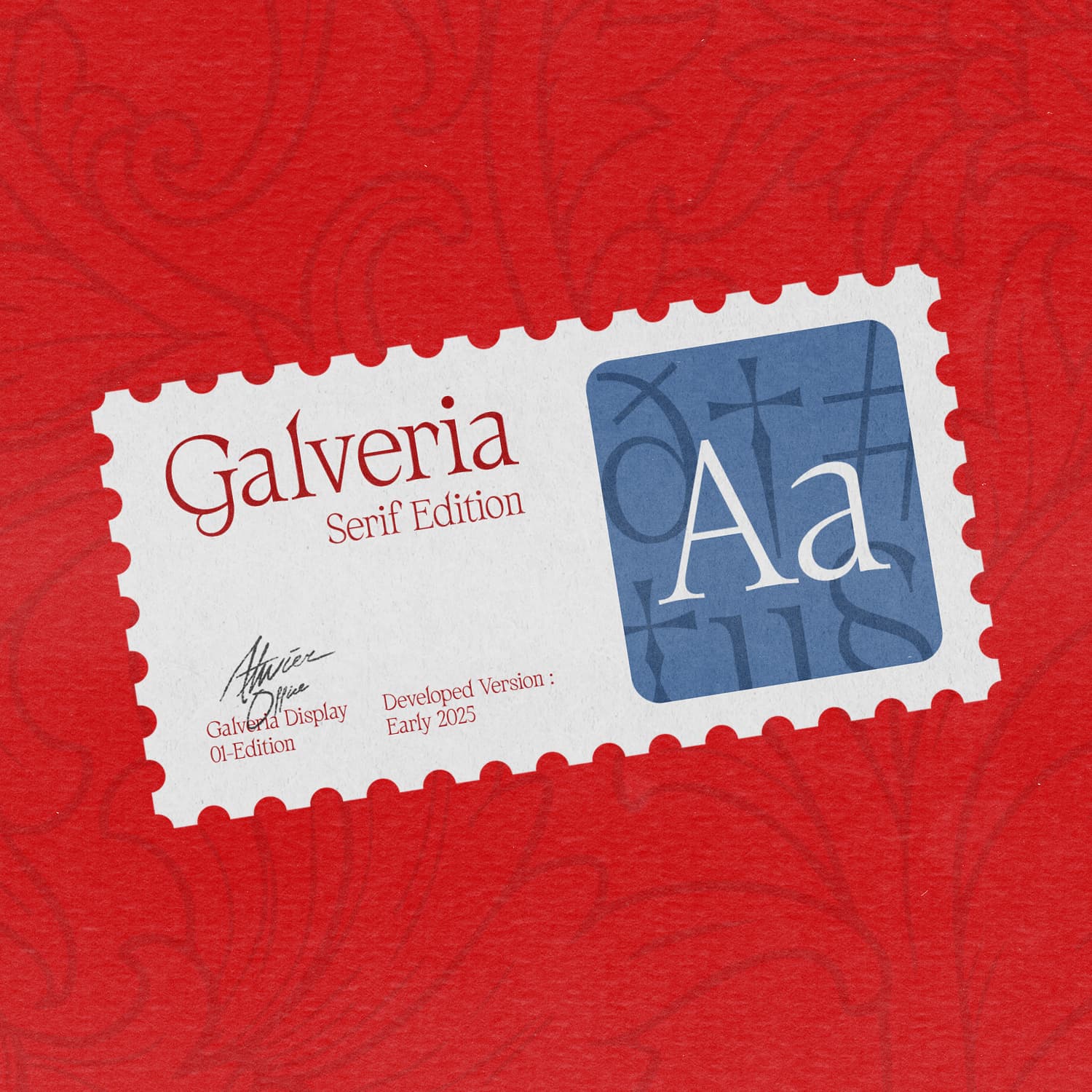
<p>Av Galveria is a high-contrast serif font, inspired by classical elegance and crafted with modern precision. Its sculpted forms and graceful serifs evoke the refinement of historic manuscripts and royal insignia, making it ideal for designs that speak in the language of timeless sophistication.<br><br>Offering unique styles and over <strong>580+</strong> characters, <strong>Galveria</strong> is a beauty and comprehensive choice for classic typographic needs.</p>